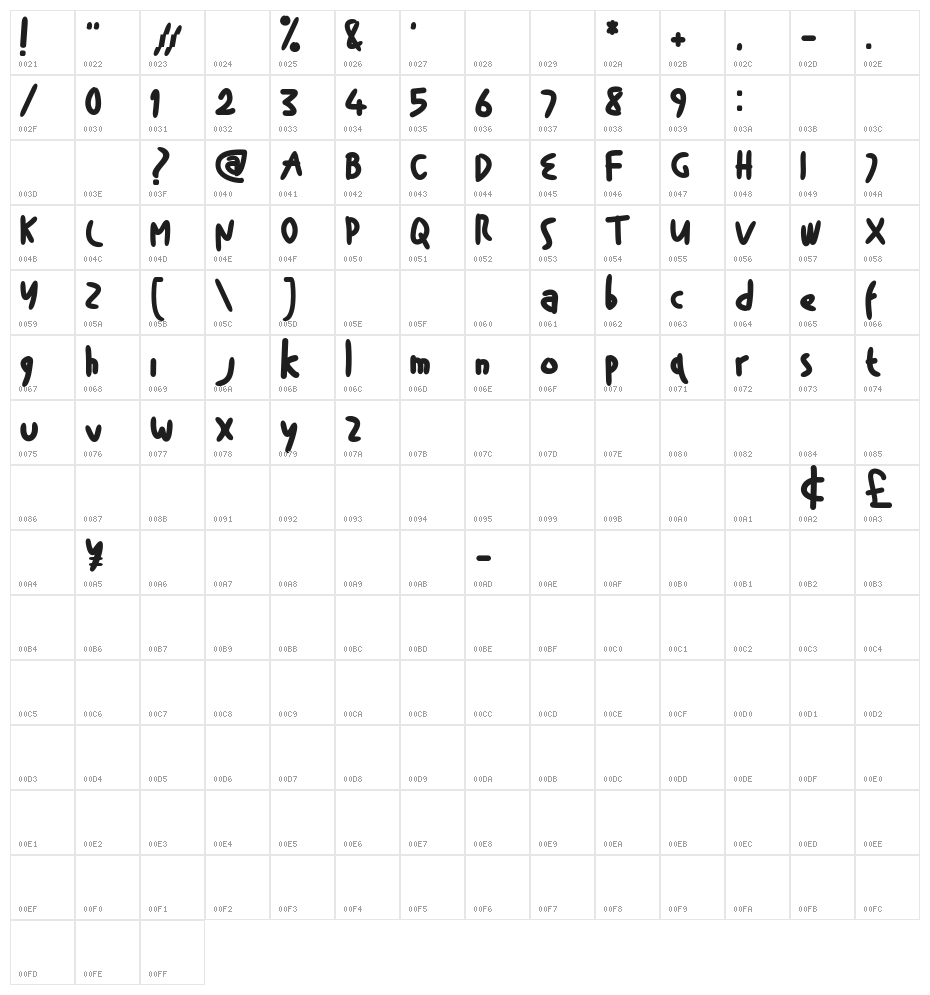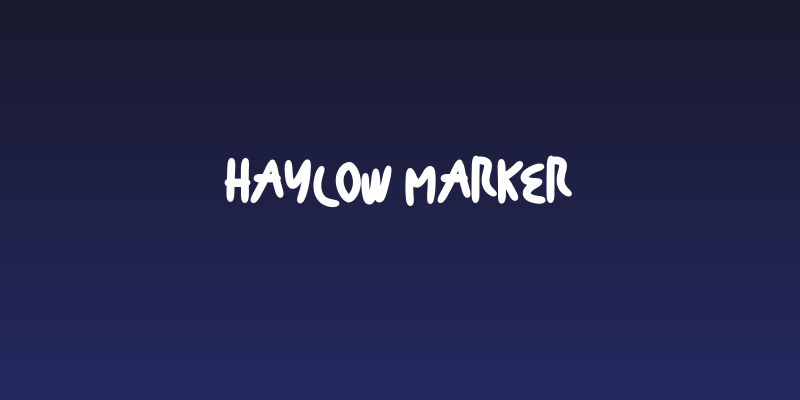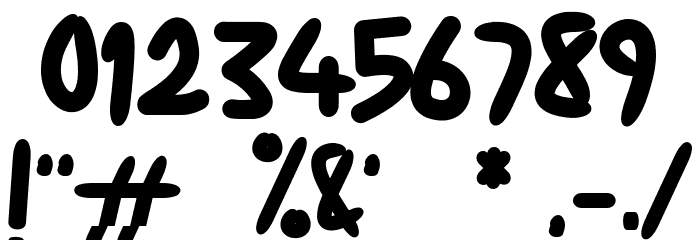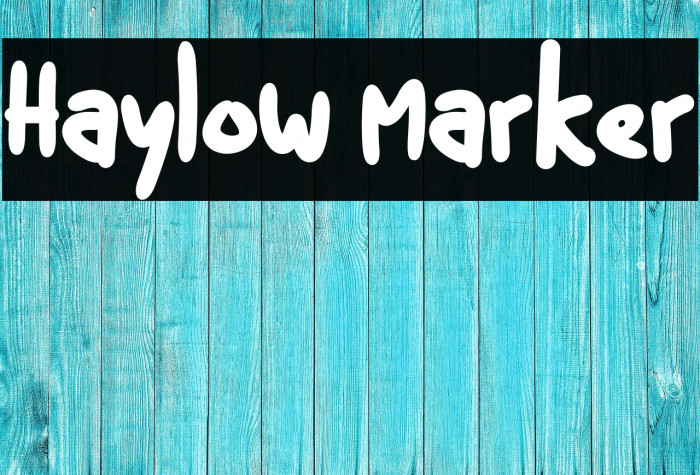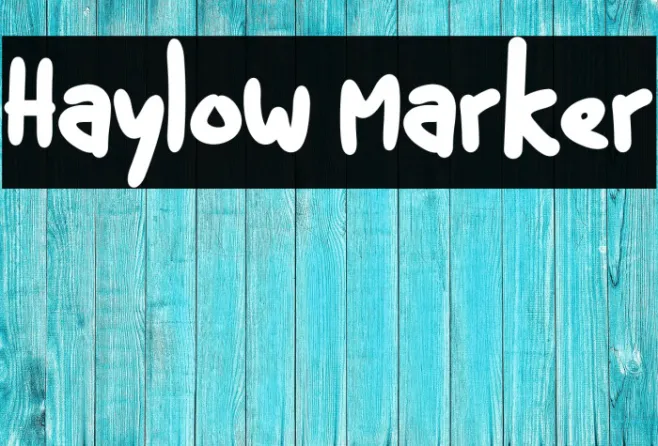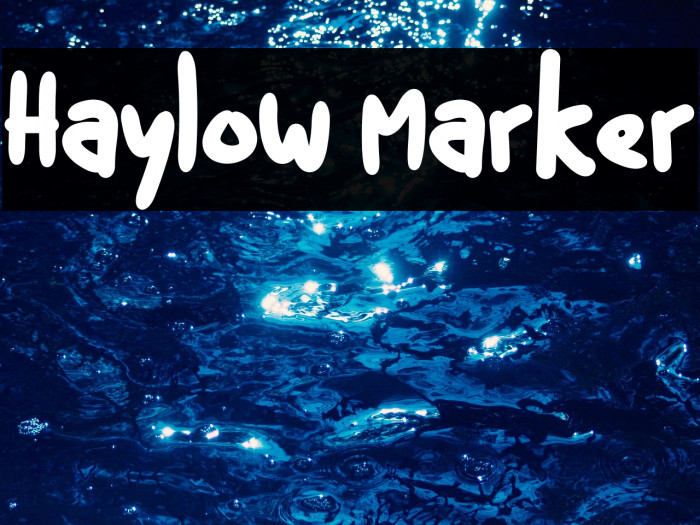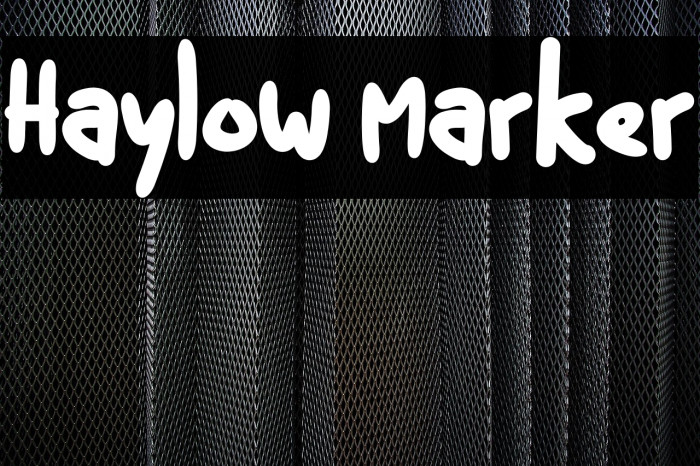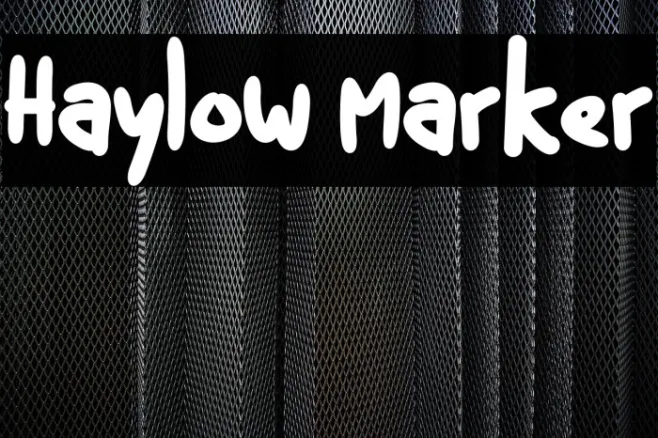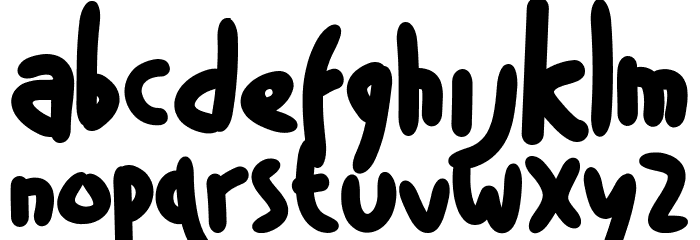
Haylow Marker Font
Haylow Marker Description
This font exudes a playful and casual vibe, reminiscent of handwritten marker strokes. The characters are bold and rounded, with a slightly uneven baseline that adds to its informal charm. The uppercase and lowercase letters maintain a consistent thickness, giving the font a cohesive look. The numbers and special characters follow the same style, ensuring uniformity across all elements. This font is perfect for projects that require a personal touch or a fun, approachable aesthetic.